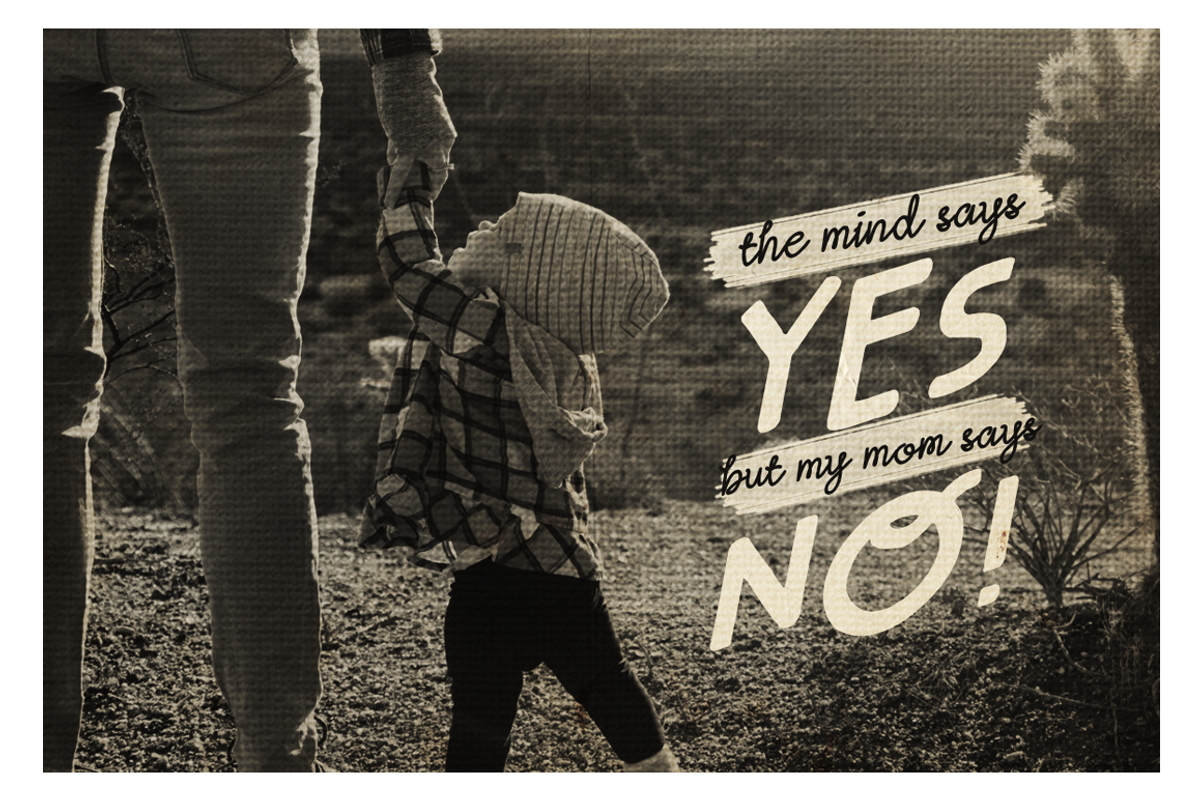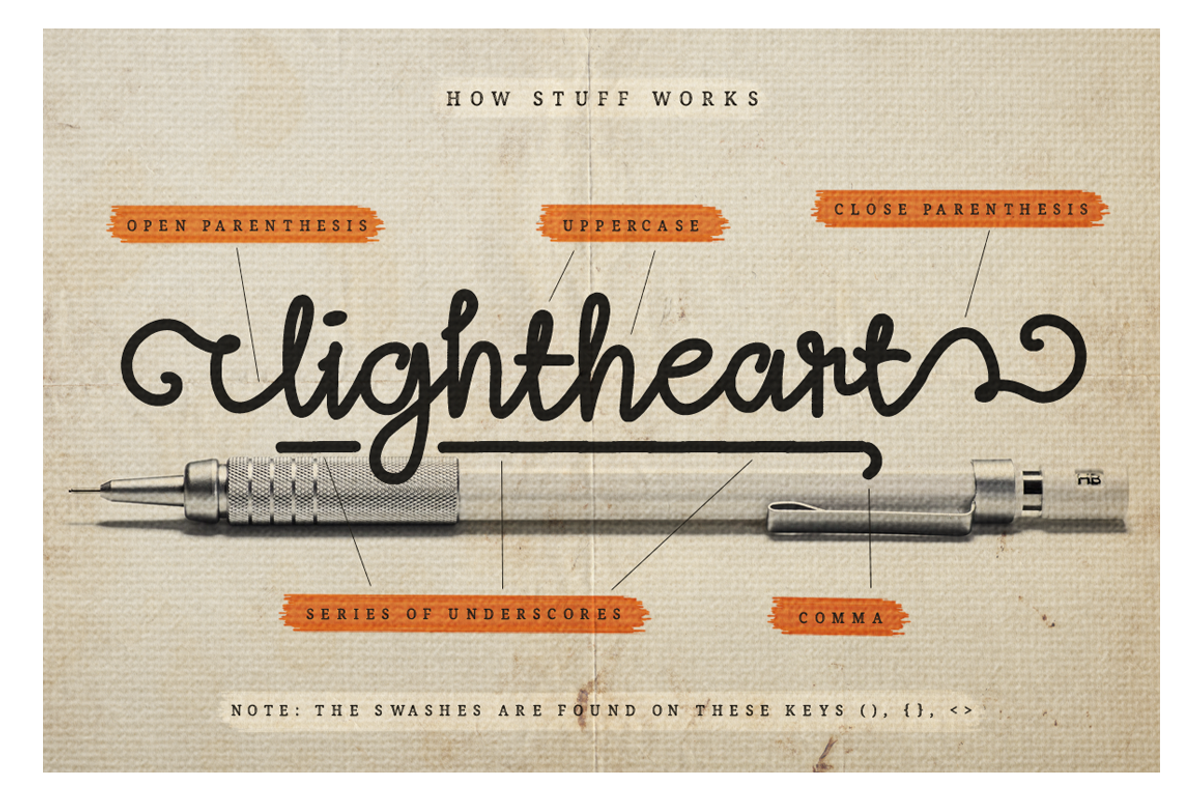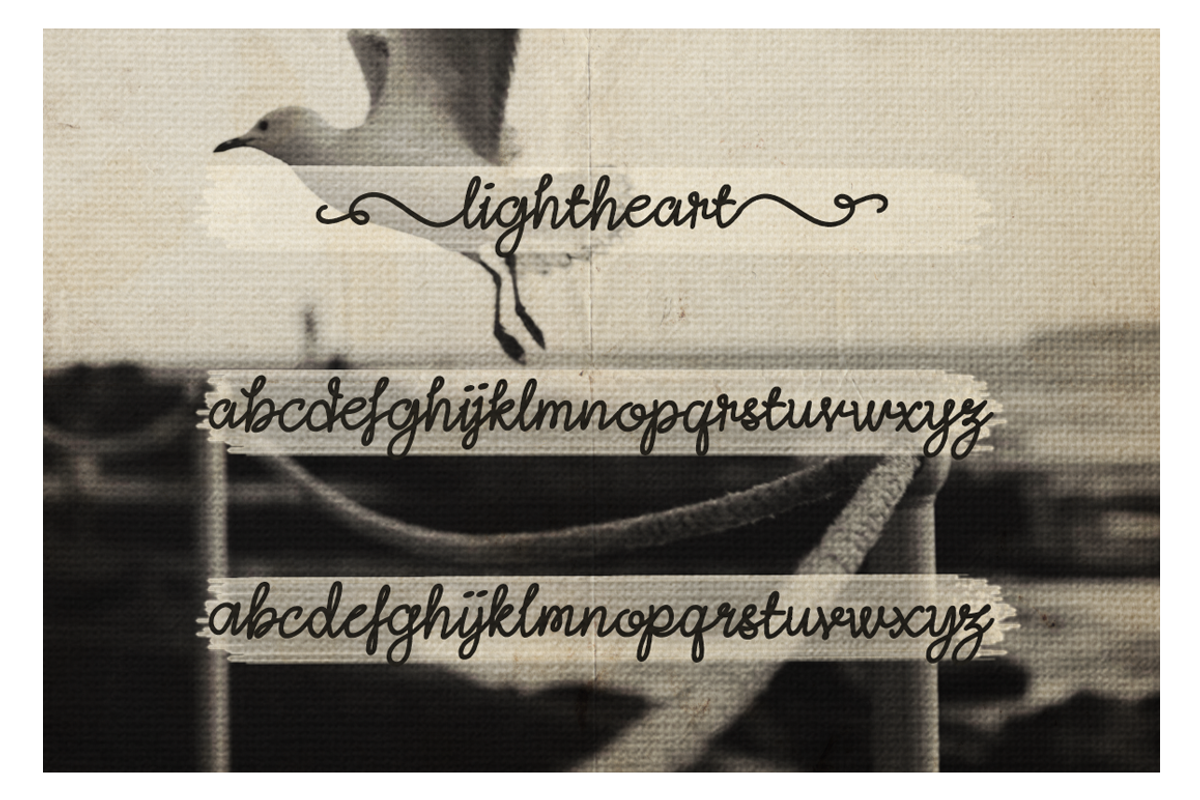
Oh Wonderful, Lightheart-Collection
Simplicity takes courage. For you who are done with all the complications, we present - "Oh Wonderful, Lightheart". A collection of fonts packed with tender beauty. These duo will simply standout among overworked designs. We provide you few examples on the preview to make you see the allure of this mildness.
Oh Wonderful - a sans serif with 3 different variations; regular, play, italic. It holds true to the look of a basic sans with uneven heights that make it fun to pair with a script font.
Lightheart - with regular and script versions. The even baselines and nice curves make it the Lightheart. Made to provide a simple, basic output with a great appeal. The swashes are found on these keys: (), {},, .
-Swashes